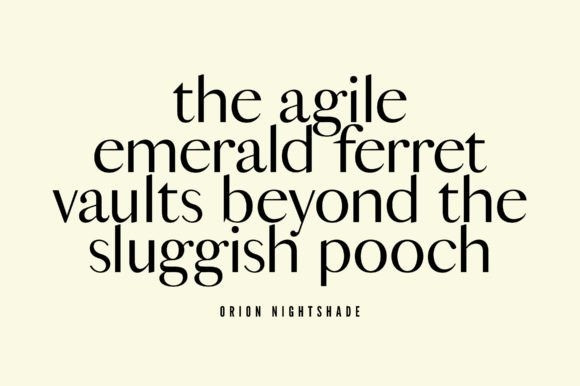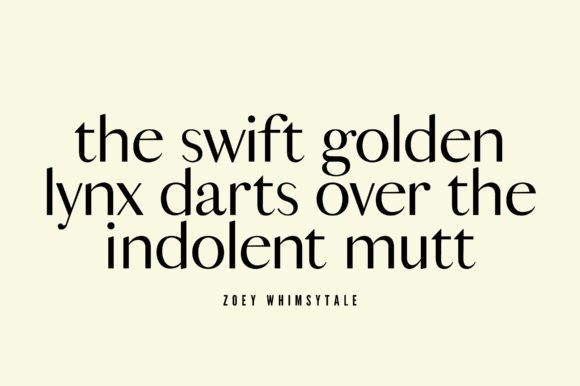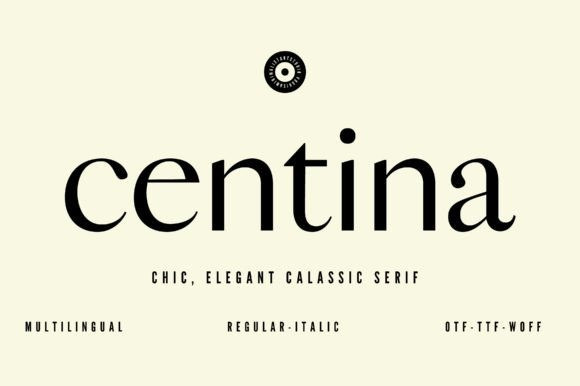
centina Font
Centina Font, a sophisticated sans-serif typeface that effortlessly combines chic aesthetics with modern elegance. Crafted with precision and a keen eye for contemporary design, Centina is the perfect choice for those seeking to make a bold statement while maintaining a timeless appeal.